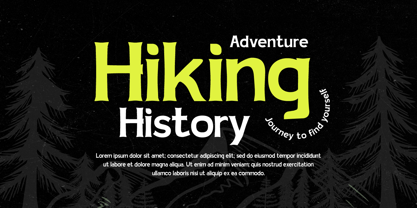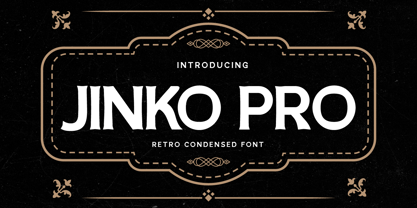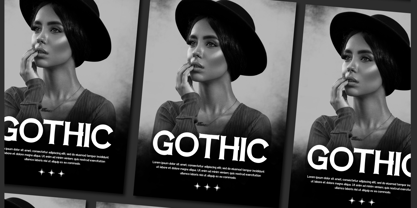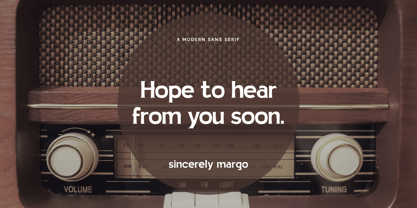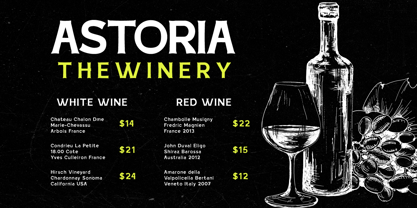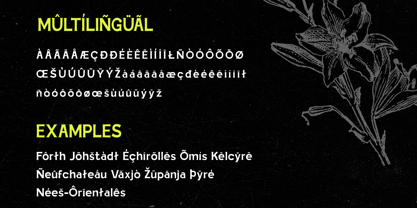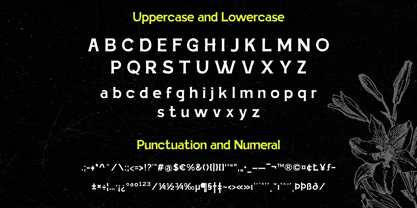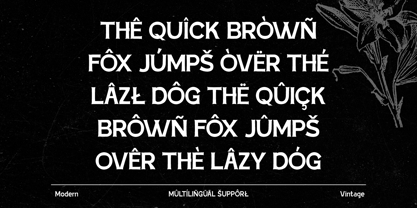
Jinko Pro
by Trabas Kriya
The Jinko Pro Font Family was designed by Murozakul Akhsan and published by Trabas Kriya. Jinko Pro contains 1 styles.
Jinko Pro is a retro font that combines vintage charm with modern style. Its unique characters are inspired by classic design, but with a modern twist. Jinko Pro is perfect for designs where you want to blend old and new.
- Fonts include Multilingual: Support for 85 languages.
Designers: Murozakul Akhsan
Publisher: Trabas Kriya
Foundry: Trabas Kriya